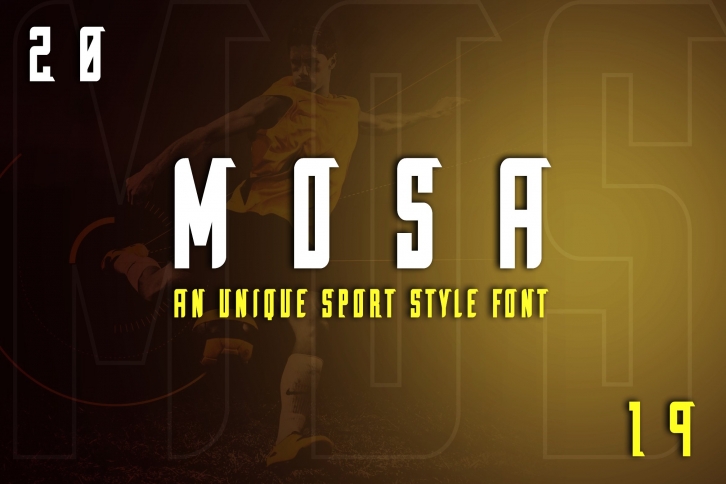
Mosa Clean Display font, is our new item that suitable for your team logo, or community logo.
Great for Logo, Sticker, Jersey, Invitation Card, Brochure, etc.